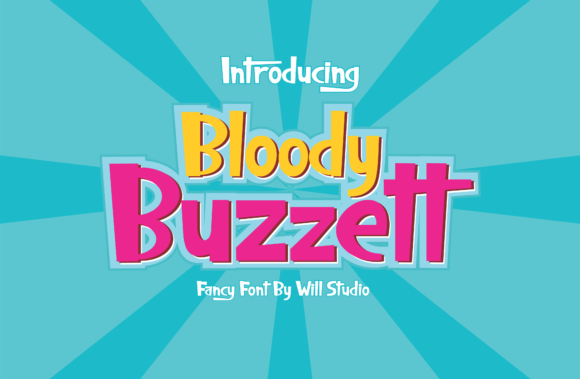
The Bloody Buzzett Font: A Playful and Fun Display Font for Your Design Projects
I’ll never forget the time I was working on a project for a client who wanted a whimsical and comic-style feel. I had spent hours browsing through font libraries, but nothing seemed quite right. That was until I stumbled upon the Bloody Buzzett font. It was love at first sight! 😍 The playful and fun display font was perfect for the project, and I knew I had to share it with my fellow designers and creative hobbyists.
An Honest Review of Bloody Buzzett
- ✨ The font’s playful and whimsical feel makes it perfect for projects that need a comic-style touch.
- ✅ The bold and eye-catching design makes it ideal for display text, such as headings and titles.
- 🎉 The font comes with a range of OpenType features, including glyphs and stylistic alternates, which can be used to add an extra layer of creativity to your designs.
While Bloody Buzzett is an amazing font, there are a few things to keep in mind. 🤔 For example, the font can be a bit tricky to read at smaller sizes, so it’s best to use it for display text rather than body text. ⚠️ Additionally, some of the glyphs and stylistic alternates can be a bit finicky, so be prepared to experiment and play around to get the desired effect.
The Backstory of Bloody Buzzett
Bloody Buzzett was designed by a talented font designer who wanted to create a font that would bring a touch of whimsy and playfulness to design projects. The font was inspired by classic comic books and cartoons, and features a range of bold and eye-catching glyphs and stylistic alternates. While the designer’s true identity remains a mystery, their passion for creating unique and creative fonts is evident in every detail of Bloody Buzzett.
| Font Name | Bloody Buzzett Font |
| Author | Willetter Studio |
A: Bloody Buzzett is a playful and fun display font that’s perfect for projects that need a whimsical and comic-style feel.
A: While Bloody Buzzett is a beautiful font, it’s best suited for display text rather than body text. The font can be a bit tricky to read at smaller sizes, so it’s best to use it for headings and titles.